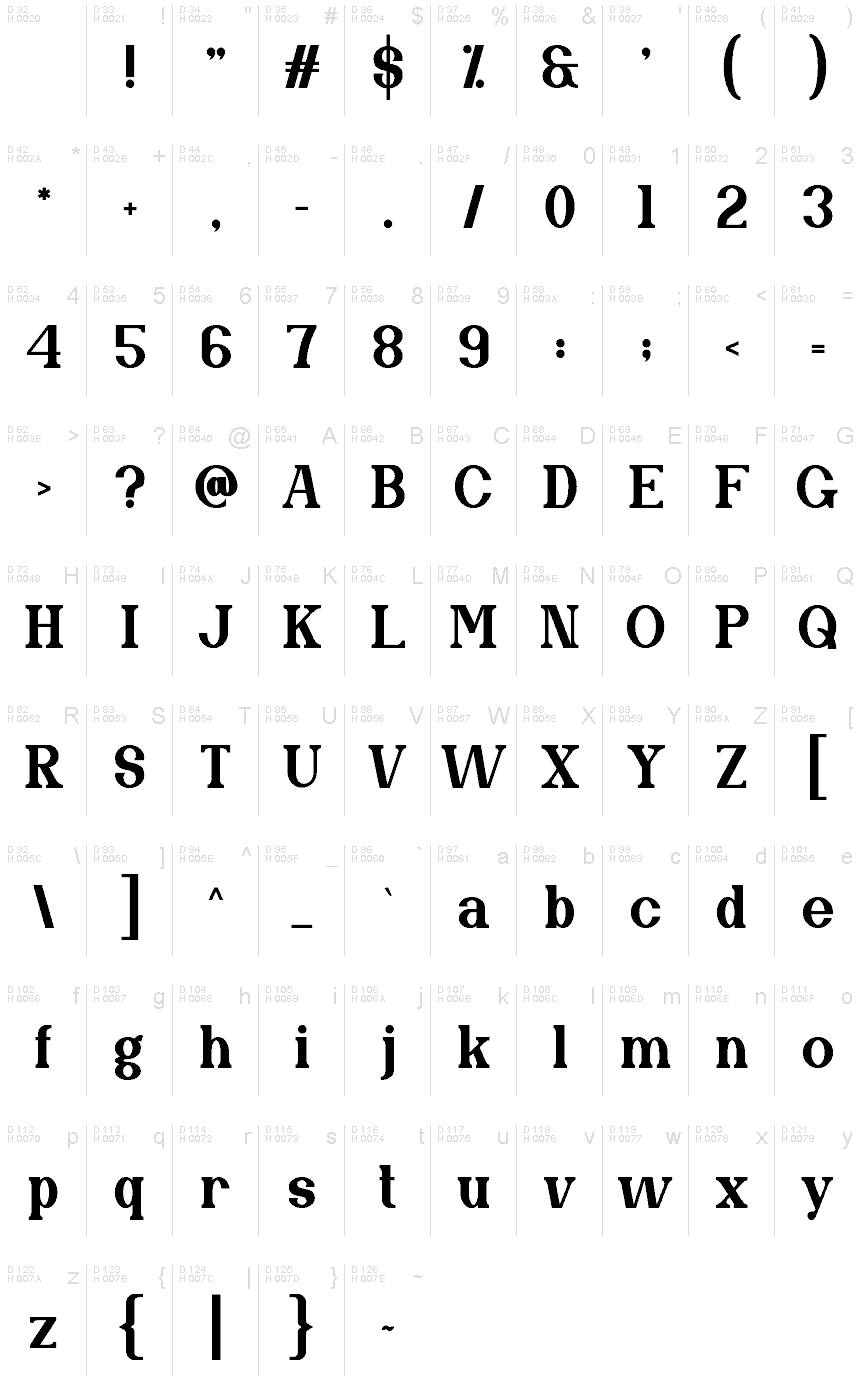
Frizen Land
Frizen Land font by Gilang Ternadho is a traditional-feel serif font that offers an elegant look. Incorporating aesthetic and classic elements, this formal display comes with a memorable design with sharp extensions and oval shapes.
Use Frizen Land to create visually rich presentations or books whose text is straightforward but never boring. Logo designs, branding projects, business cards, stationery designs, headers, and magazines are all suitable platforms for this free tool as well.